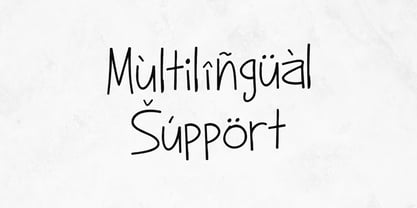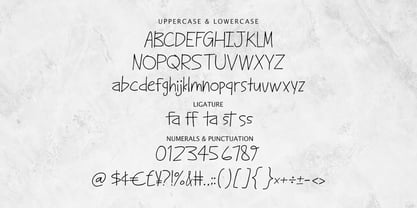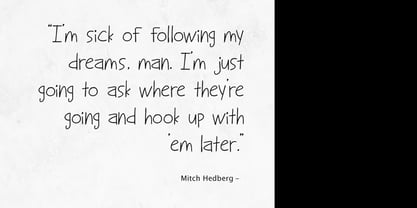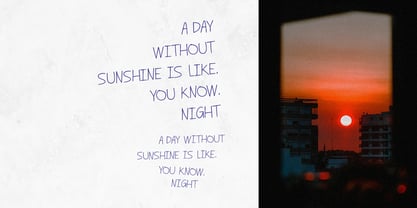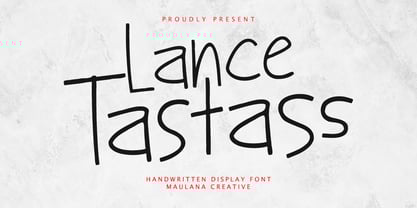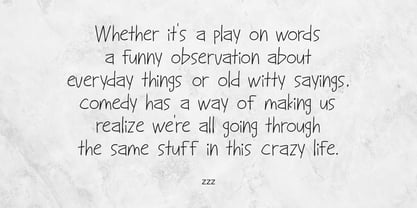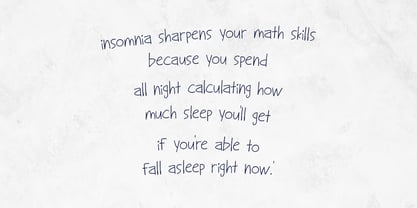
MC Lance tastass
by Maulana Creative
The MC Lance tastass Font Family was designed by Gilang Maulana and published by Maulana Creative. MC Lance tastass contains 1 styles.
Lance Tastass is a playful handwritten display font that brings a casual, modern, and touch to your designs. With its natural hand-drawn strokes and quirky character shapes, this font is perfect for projects that need a friendly and approachable vibe.
It includes uppercase, lowercase, numerals, punctuation, and fun ligatures to make your typography look more authentic and creative. Whether you’re working on quotes, posters, social media content, branding, invitations, or packaging design, Lance Tastass will add a unique personality and warmth to your work.